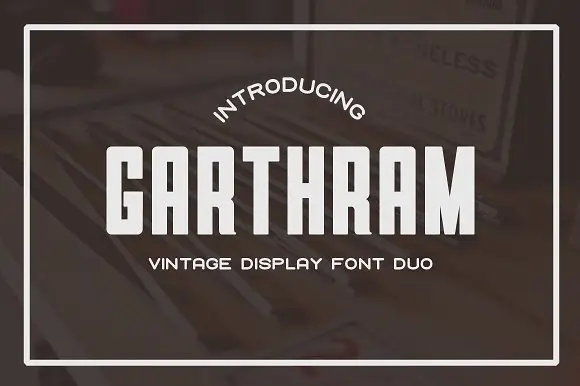
Garthram Font
The Garthram Font is a modern typeface designed for versatility and elegance. With its unique blend of geometric shapes and soft curves, this font is perfect for a variety of applications, from branding to digital media.
• Stylish uppercase and lowercase letters
• Multiple weights for diverse design needs
This font is ideal for creating logos, website headers, print materials, and user interfaces. Its clean lines and contemporary style make it suitable for both personal and professional projects.